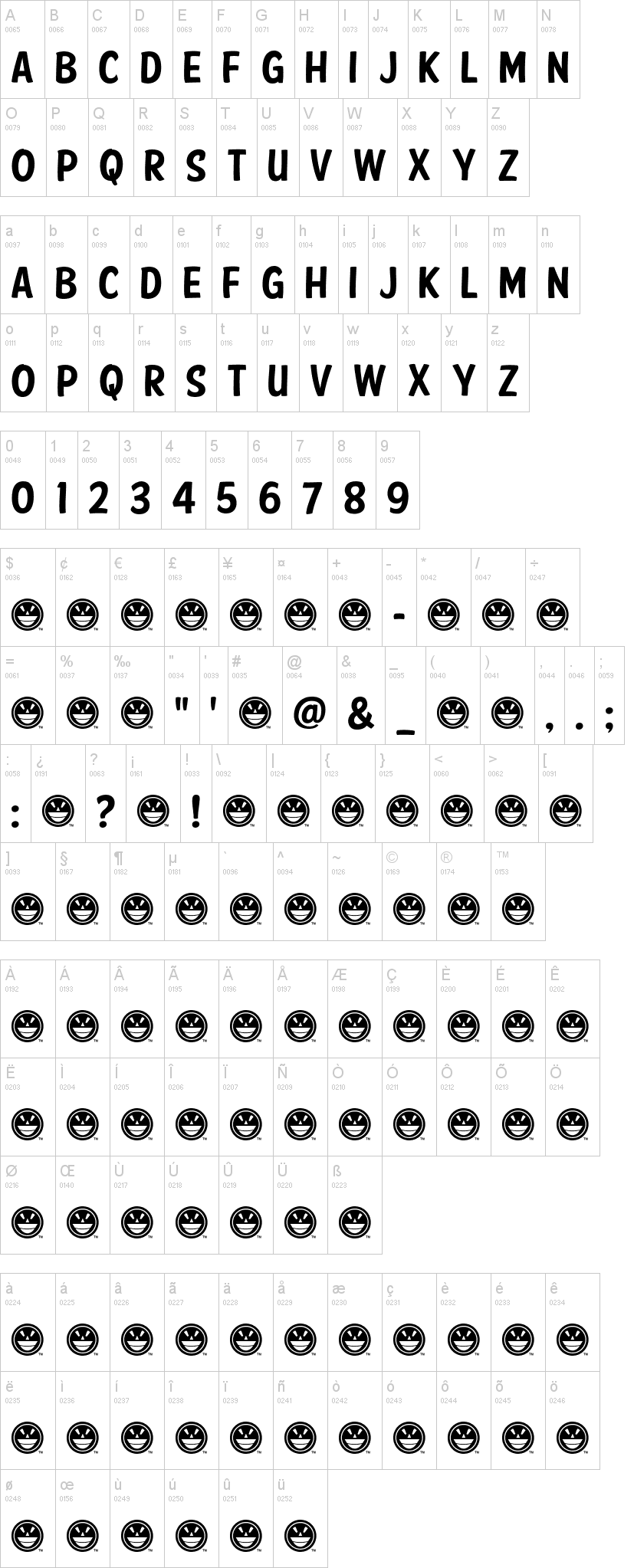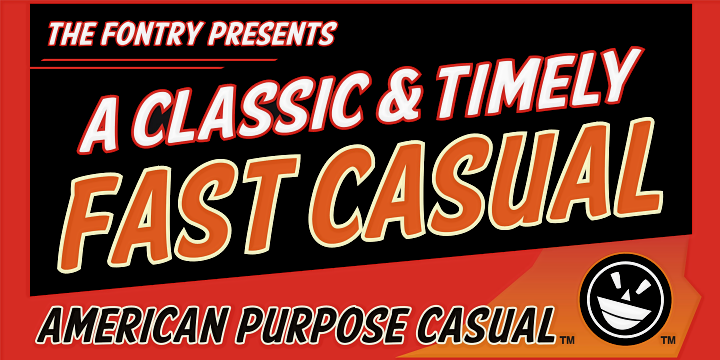
The captain America knows and loves best has a new sidekick. Two actually. You can't go through life all rigid and uptight. You need to relax. Find some casual time. Or lean it hard right if you want to go FAST! The casual version of the Fontry's American Purpose font has arrived to fulfill your design pleasures, whether you want to go slow and upright, or quickly leaning into the wind as you leap from rooftop to rooftop.